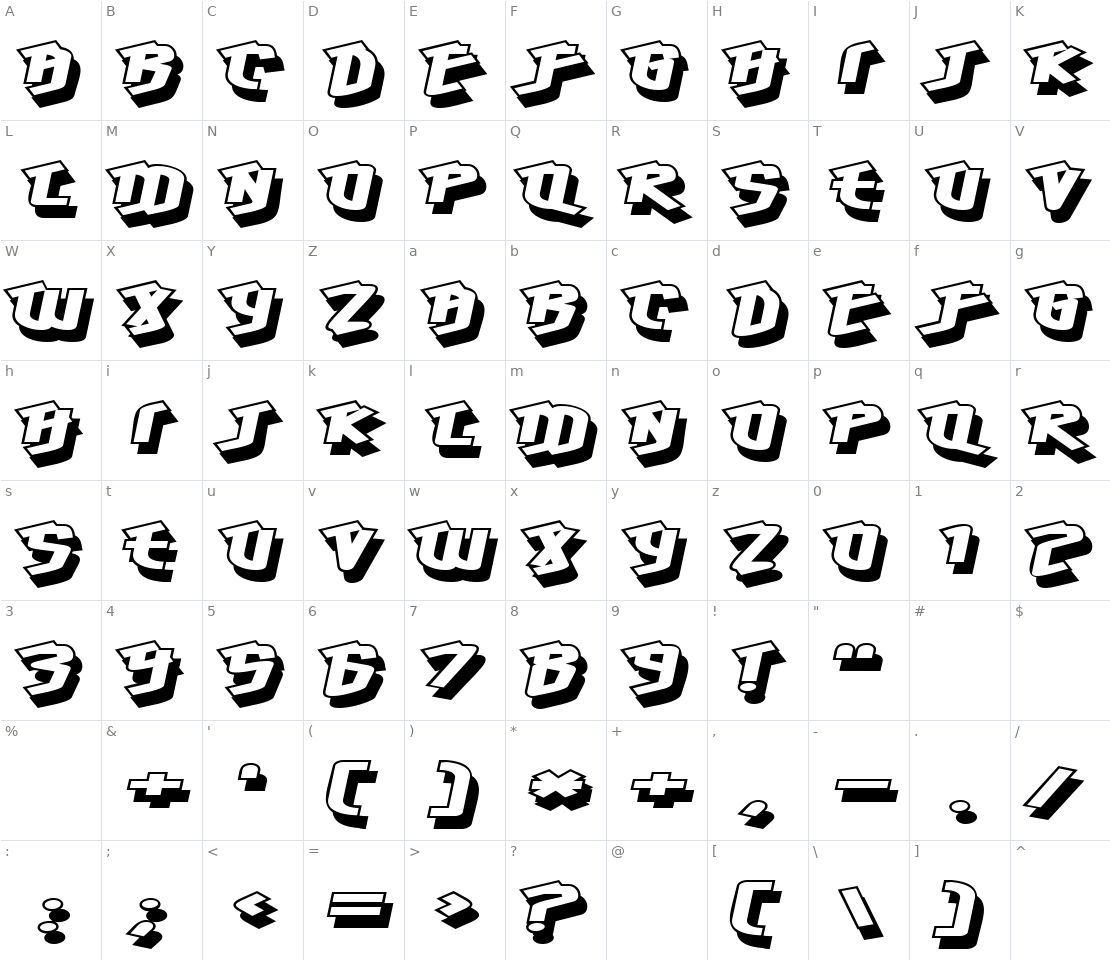
Hawkeye
Hawkeye is a bold, italic display face from Ray Larabie with angular letterforms and built-in 3D shadow effects that give it a hard-hitting, in-your-face presence. The forward lean and aggressive geometry make it feel like it's moving at speed, built for posters, headlines, and anything that needs to grab attention without asking politely. The dimensional shading adds depth that works best at large sizes where the detail doesn't collapse.